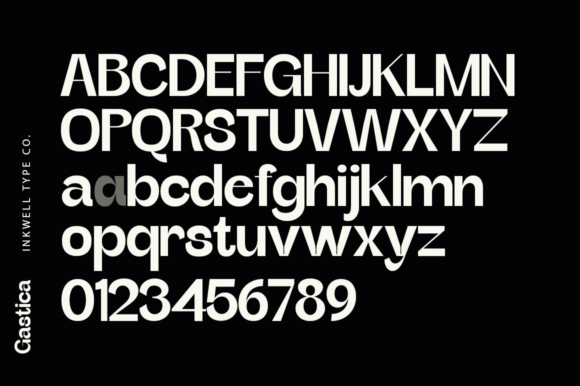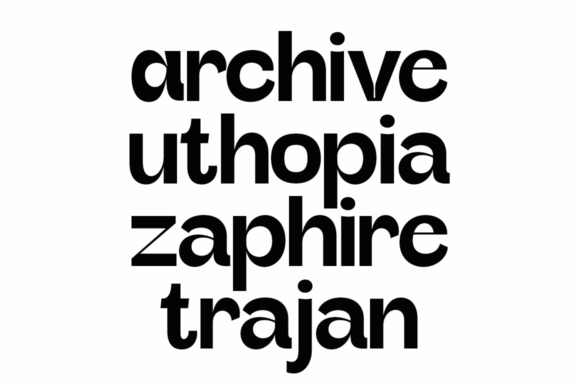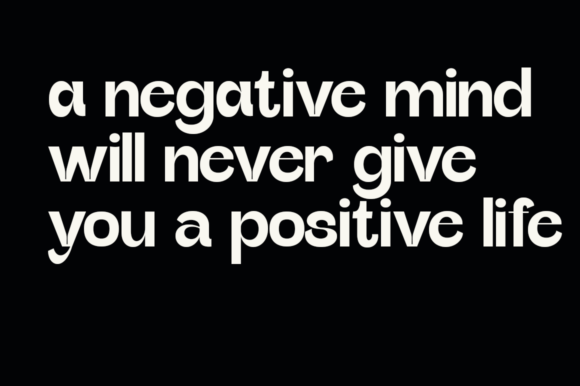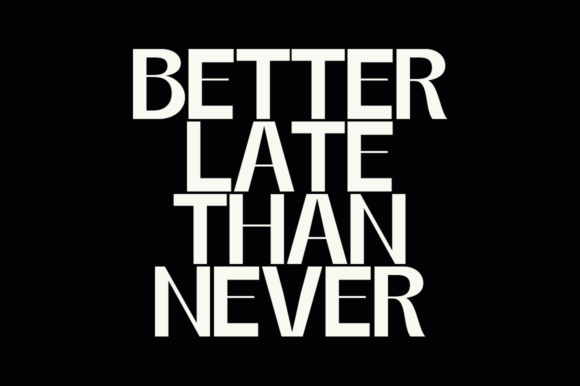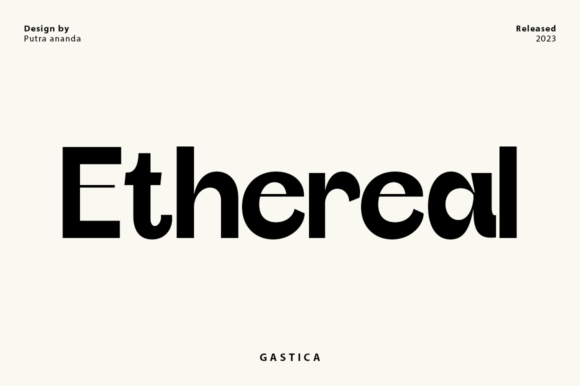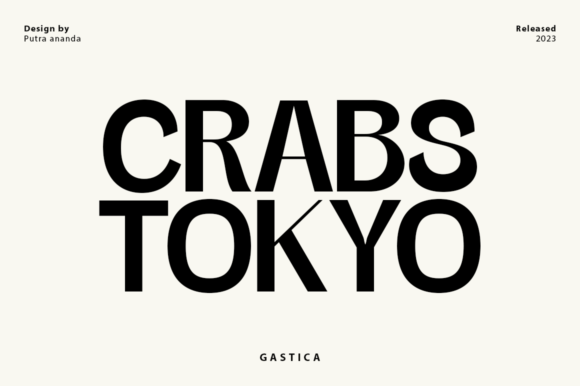
The Ultimate Display Font: Gastica
Have you ever been working on a design project, pouring your heart and soul into it, only to get stuck on one thing: finding the perfect font? I remember a recent project where I was tasked with creating a bold and eye-catching title for a client’s luxury brand. I scoured the internet for hours, trying out font after font, until I stumbled upon Gastica. This stunning display font caught my attention with its unique letterforms and modern style, and I knew right then and there that it was the one.
A First Impression: What Makes Gastica Special
Gastica is an alluring and dazzling display font that is designed to grab attention and make your message stand out. With boldness in every letter and an elegant style, this font is perfect for titles, logos, and other design elements that you want to draw attention to. What I love about Gastica is its versatility – with various variants and font weights available, it provides flexibility in expressing your creativity.
What I Love About Gastica
- ✨ Unique and modern letterforms that grab attention
- ✅ Bold and elegant style that’s perfect for luxury brands
- 💫 Highly versatile with various variants and font weights
- 🎨 Perfect for titles, logos, and other design elements
While Gastica is an amazing font, there are a few things to keep in mind. For example, ⚠️ some of the more intricate details may get lost at smaller font sizes. Additionally, 🤔 the font may not be suitable for body text or smaller design elements, as it’s primarily designed for display purposes.
The Backstory Behind Gastica
Gastica was designed by a team of creatives who wanted to create a font that would make a statement. Inspired by modern luxury brands and high-end designs, they crafted a font that exudes elegance and sophistication. The result is a stunning display font that’s perfect for designers, crafters, and creative hobbyists.
| What is Gastica? | Gastica is a modern display font designed for luxury brands and high-end designs. |
| Is Gastica suitable for body text? | No, Gastica is primarily designed for display purposes and may not be suitable for body text or smaller design elements. |